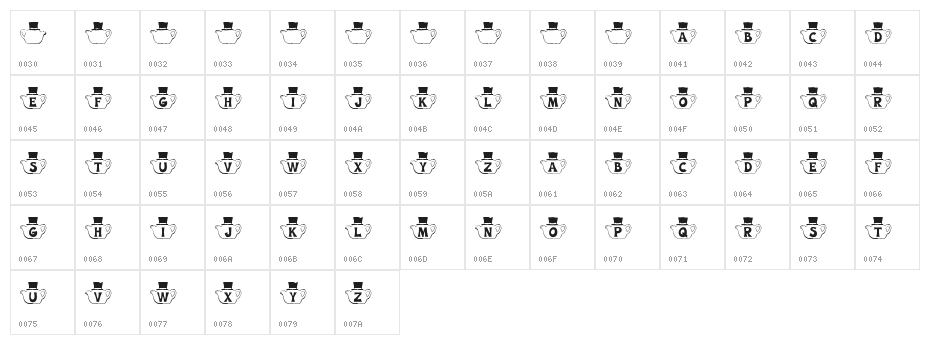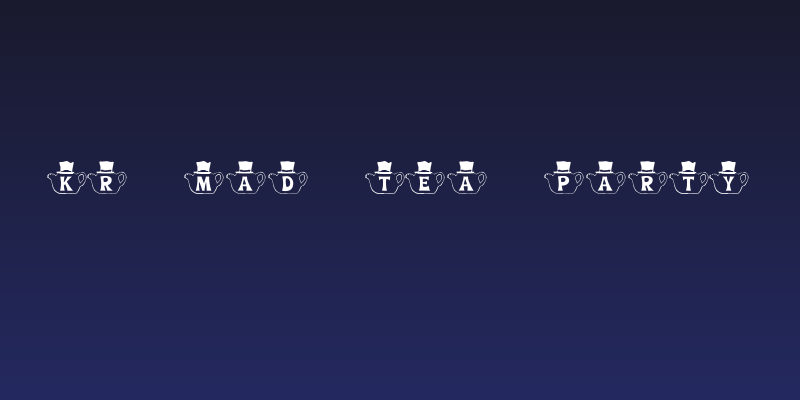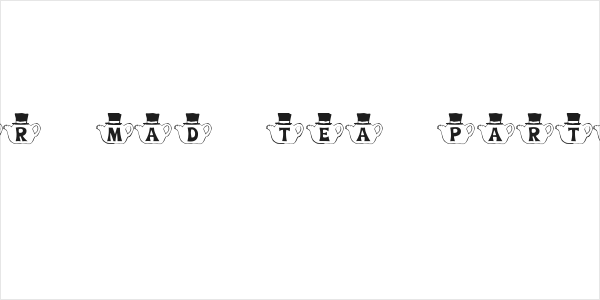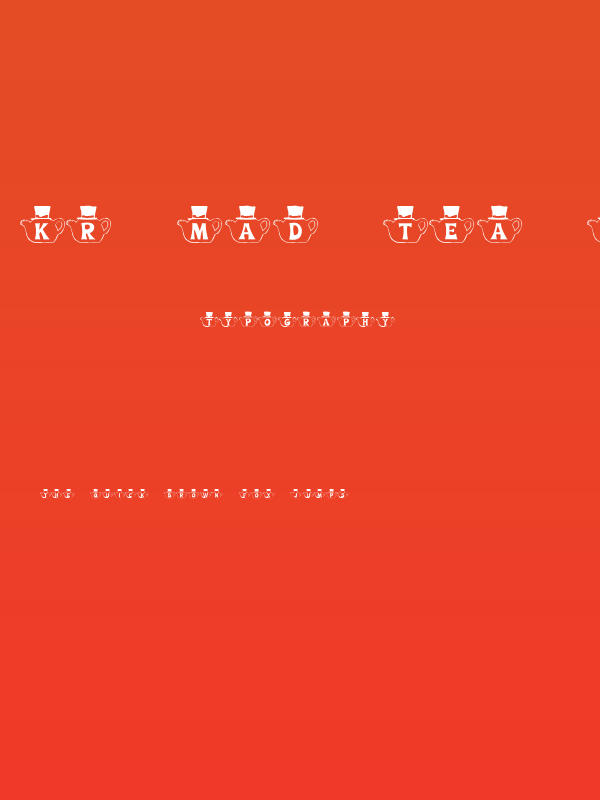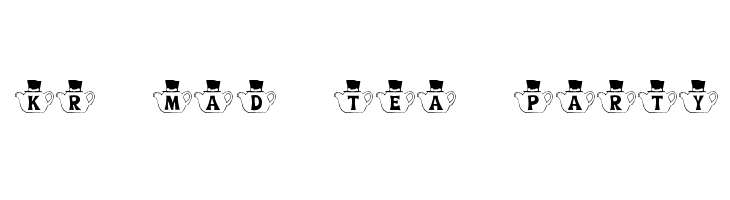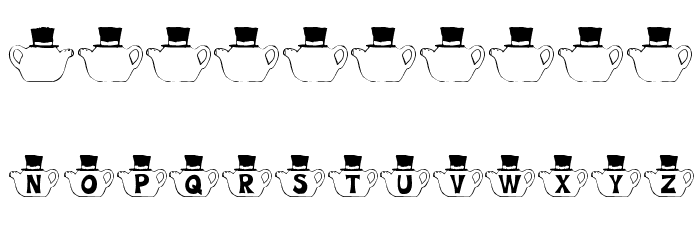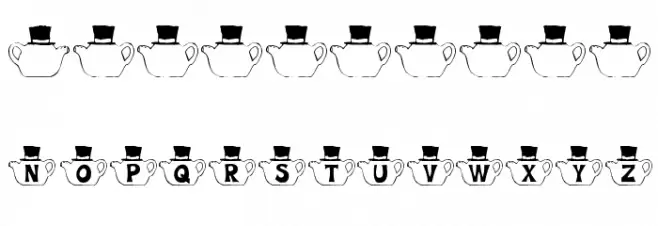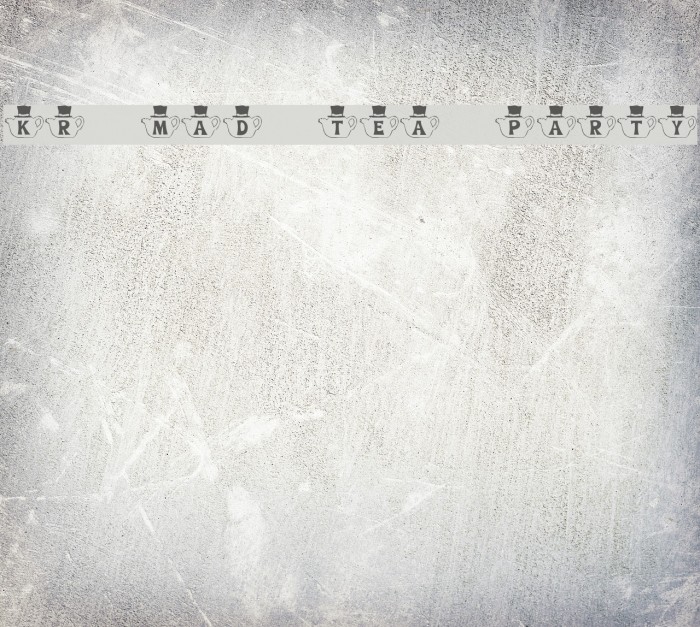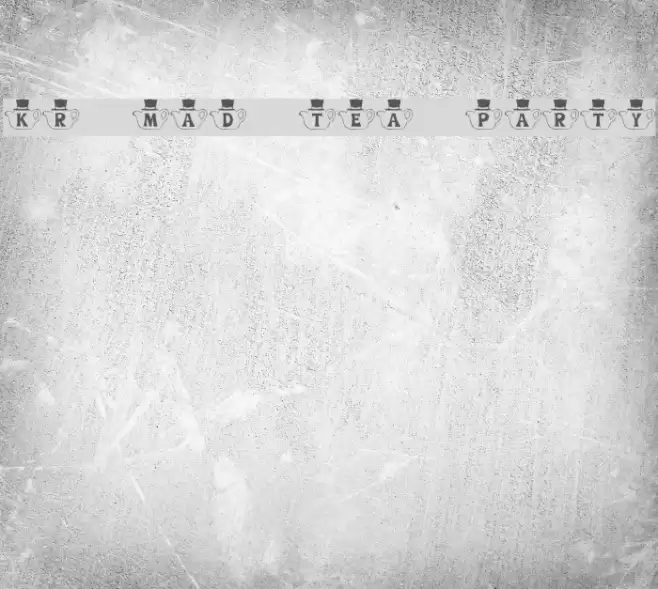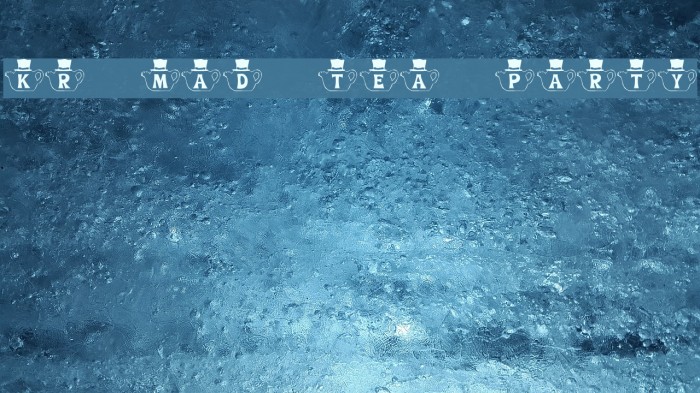
KR Mad Tea Party Font
KR Mad Tea Party Description
This whimsical font features each letter encased within a teapot shape, complete with a handle and spout, topped with a classic top hat. The design evokes a playful and imaginative style, reminiscent of a fantastical tea party setting. The letters are bold and easily distinguishable, making them suitable for decorative purposes. The unique combination of the teapot and top hat elements adds a touch of charm and eccentricity, perfect for projects that aim to capture a sense of wonder and creativity.
| Overall Style | Whimsical, Playful |
| Use Case | Logos, Invitations, Decorative Headlines |
| Proposed Projects | Ideal for themed party invitations, children's book covers, whimsical branding, or any project requiring a playful and imaginative touch. |